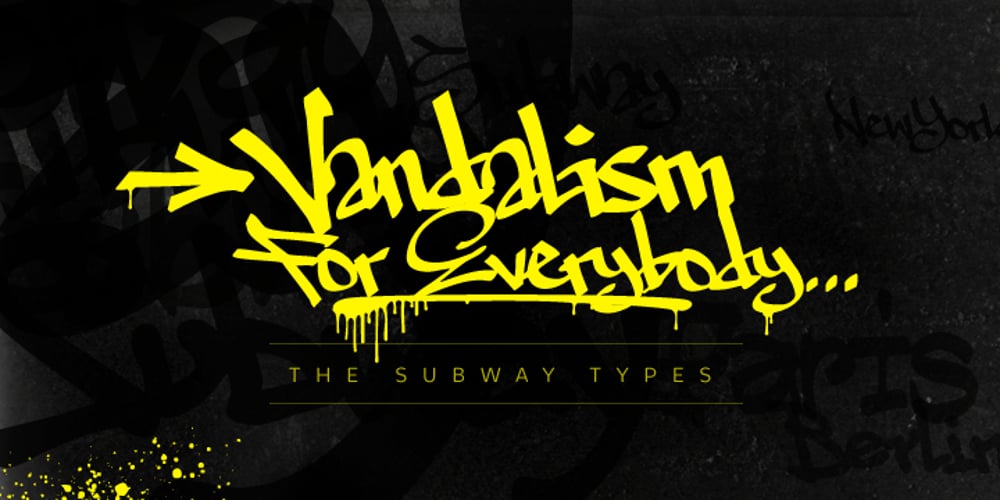
The Subway Types Font Family was designed by Hannes von Döhren and published by HVD Fonts. The Subway Types contains 10 styles and family package options. The idea was to create a package containing prominent tag styles of graffiti strongholds like New York, Berlin and Paris. Shik (New York), Deon (Paris) and Etan (Berlin) came together to show the typical tag styles of their respective metropolitan areas. The fonts were digitized, spaced, kerned and programmed by Hannes von Döhren. The Subway Types are highly equipped. Each one consists of 4 alphabets (Uppercase, Lowercase, Small Caps & Swash). They also include ligatures and some specials like underlines and a huge range of accents for a wide language support. With the OpenType technology these features can be applied easily. For those who never used the OpenType features, we created the Std (Standard) and the SC (Small Caps) versions of the fonts. They contain the same basic characters like the OT versions but are split in two fonts. Hence you don’t need any OpenType knowledge to use the Std and SC fonts.